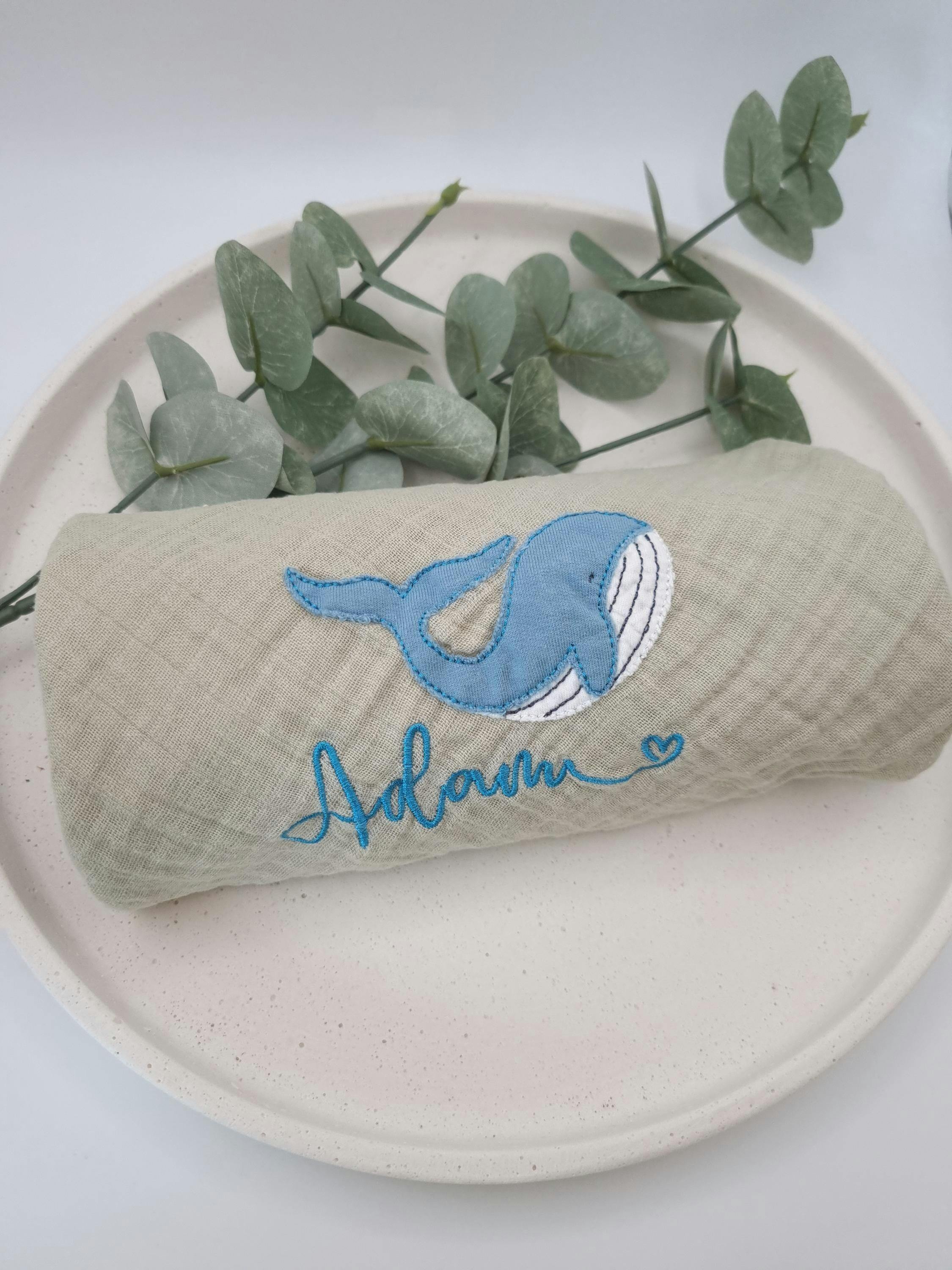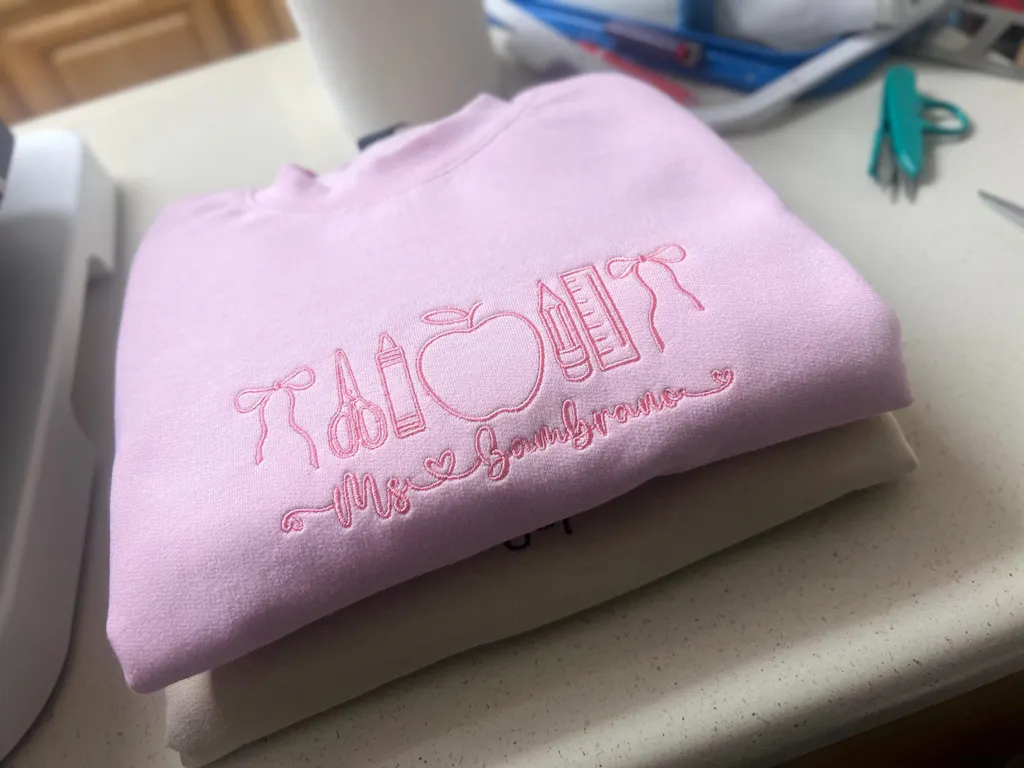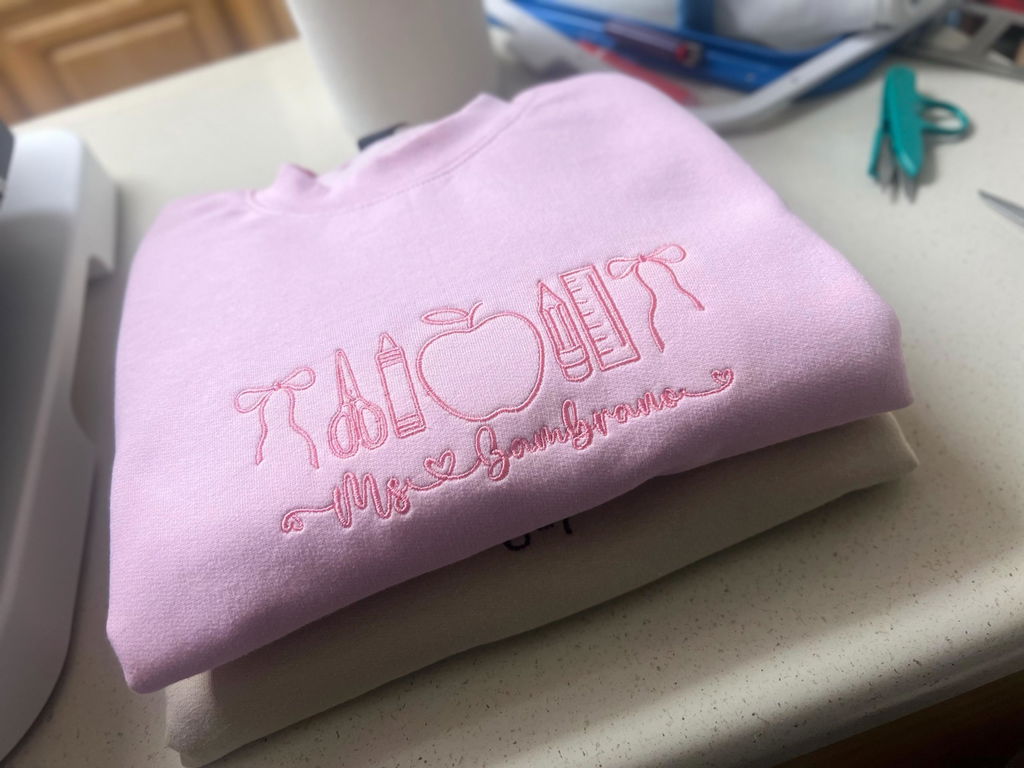
Photograph of Ice Cream embroidery font
Photograph of Ice Cream embroidery font alphabet
Photograph of stitched out Ice Cream embroidery font
Ice Cream Digital Embroidery Font
Indulge in the delightful charm of Ice Cream, a font that not only adds a whimsical touch to your designs but also melts hearts with its six adorable glyphs, including heart accents perfect for birthdays, Valentine's Day, weddings, and more. Sprinkle your creations with the sweet essence of celebration and love with every character and swoop of Ice Cream.
Included: Uppercase Letters, Lowercase Letters, Alternates, 8 Punctuation, Numbers, Glyphs
Stitch Type: Fill Stitch